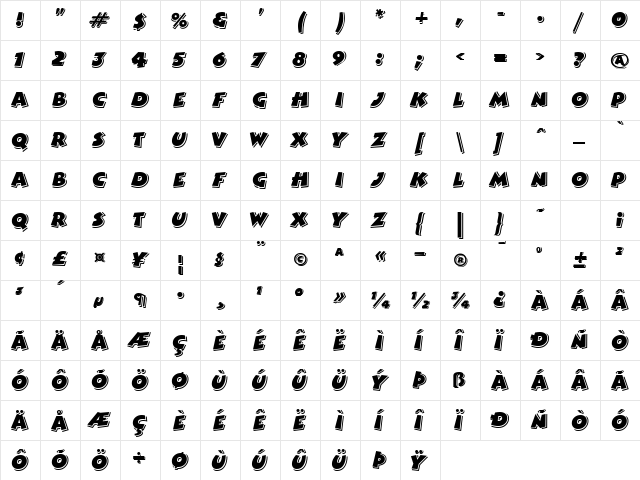
GE Comedian Caps Regular
Design Context for GE Comedian Caps Typeface
GE Comedian Caps is a composed and adaptable typeface that performs quietly and consistently across a wide range of design contexts.